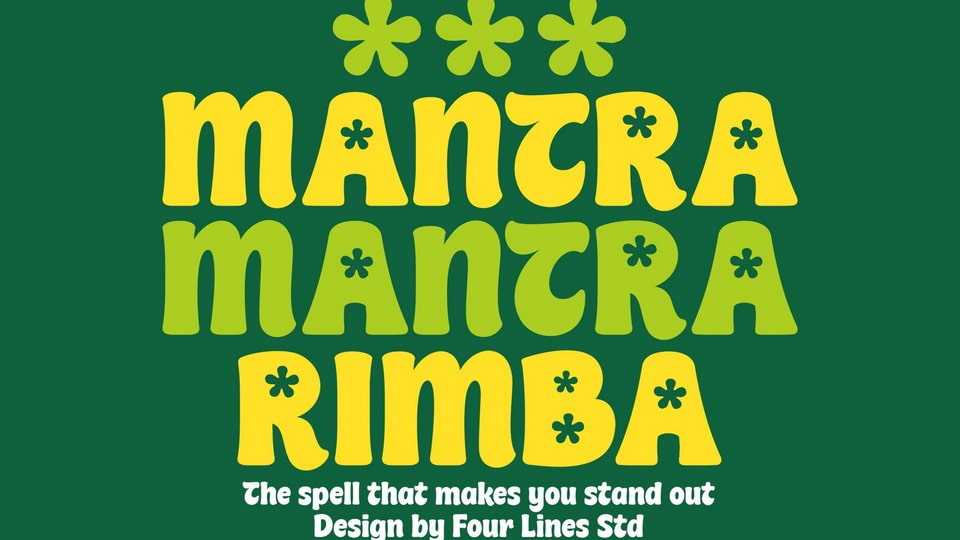
Download Mantra Rimba font, a magic display typeface inspired by the beauty that surrounds us. While it’s inspired by nature’s whimsy, we haven’t forgotten the basics.